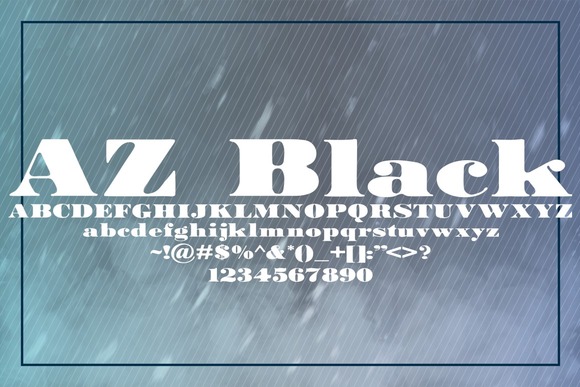
Prepare to be mesmerized by AZ Black Font, a serif masterpiece crafted by Artistofdesign. This captivating font exudes an aura of elegance and sophistication, reminiscent of the bold lettering adorning dollar bills. Its crisp, clean lines and legible design make it an ideal choice for any project that demands a touch of refined boldness.
Immerse yourself in a world of infinite possibilities with AZ Black Font. Whether you're crafting stunning logos, eye-catching headlines, or captivating posters, this font will amplify your message with its timeless appeal. Its versatility extends to digital and print mediums, ensuring seamless integration into your creative endeavors.